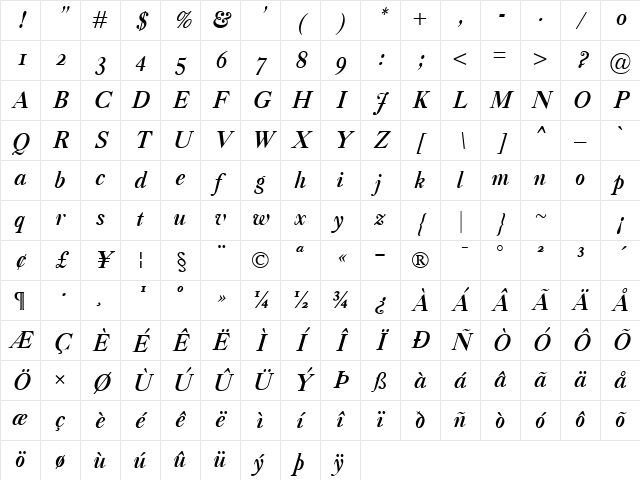
Complete Caslon Classico BoldItalic glyph index. Displaying only characters natively supported by Caslon Classico BoldItalic font.
Caslon Classico wears its vintage influences proudly, with letterforms that recall mid-century signage, classic packaging, and nostalgia-driven design. The slanted form adds forward momentum and visual energy. Its bold stroke weight gives it real presence on the page.
Font Pairing: Combine Caslon Classico with a simple slab or neutral sans - period-accurate companions reinforce the vintage feel without competing for attention.
Pro Tip: Lean into Caslon Classico's period character by pairing it with aged paper textures, muted colour palettes, and vintage illustration styles.